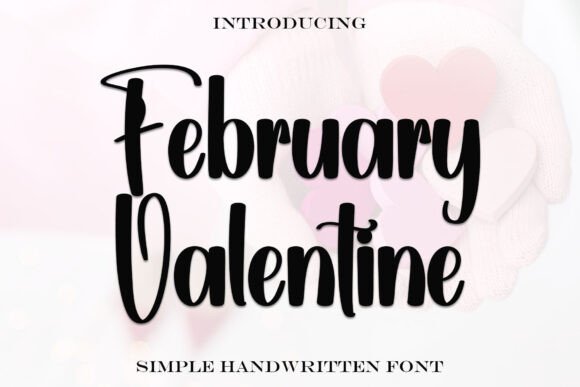
Introducing February Valentine Font: Elevate Your Designs with Elegance and Class
Are you a designer or crafter looking for a font that exudes sophistication and style? Look no further than the February Valentine Font, a trendy handwritten font that brings a contemporary atmosphere and impeccable form to your design projects. Inspired by timeless classic calligraphy, this font is sure to add a touch of elegance and class to any design.
The Inspiration Behind February Valentine Font
The February Valentine Font is inspired by the art of classic calligraphy, which has been a cornerstone of elegant writing for centuries. With its roots in traditional calligraphy, this font brings a sense of nostalgia and timelessness to your designs, while still feeling fresh and modern. The font’s creator aimed to capture the essence of classic calligraphy and infuse it with a contemporary twist, making it perfect for designers and crafters who want to add a touch of sophistication to their work.
Key Features of February Valentine Font
- Trendy Handwritten Style: The February Valentine Font boasts a trendy handwritten style that is perfect for a variety of design projects, from wedding invitations to branding materials.
- Contemporary Atmosphere: With its clean lines and modern aesthetic, this font brings a contemporary atmosphere to your designs, making them feel fresh and up-to-date.
- Impeccable Form: The font’s impeccable form ensures that it is legible and easy to read, making it perfect for body text and headings.
- Elegant and Classy: The February Valentine Font is designed to add elegance and class to your designs, making it perfect for high-end branding, wedding stationery, and more.
Uses for February Valentine Font
The February Valentine Font is versatile and can be used in a variety of design projects, including:
- Wedding Stationery: Use the February Valentine Font to create beautiful wedding invitations, save-the-date cards, and more.
- Branding Materials: Add a touch of elegance to your branding materials, such as business cards, letterheads, and packaging.
- Signage: Use the font to create eye-catching signage for events, businesses, or exhibitions.
- Digital Designs: The February Valentine Font can also be used in digital designs, such as social media graphics, blog headers, and more.
Tips for Using February Valentine Font
To get the most out of the February Valentine Font, here are a few tips:
- Pair with Neutral Colors: Pair the font with neutral colors, such as white, black, or gray, to let the font take center stage.
- Experiment with Sizes: Experiment with different font sizes to create visual hierarchy and add emphasis to important text.
- Add Decorative Elements: Add decorative elements, such as flourishes or graphics, to enhance the font’s elegant feel.
The February Valentine Font is a beautiful and elegant font that is perfect for designers and crafters looking to add a touch of sophistication to their designs. With its trendy handwritten style, contemporary atmosphere, and impeccable form, this font is sure to elevate your designs and make them stand out. Whether you’re working on a wedding stationery project or a branding campaign, the February Valentine Font is a great choice.